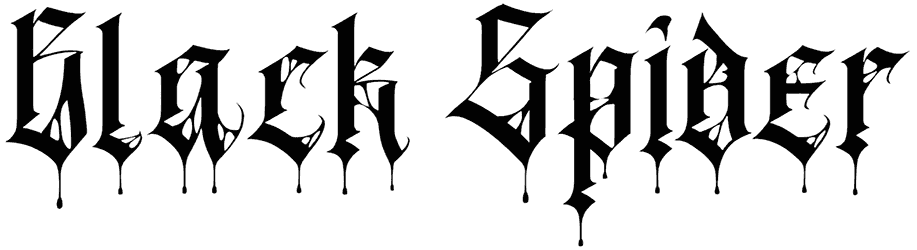
Black Spider Font
For horrifying designs, one of the best elements is the cobweb, and who can ignore writings like this? As a vampire font, Black Spider has classic letters that are dripping. With the almost full support of characters, this eerie face letter can be an ace illustration for your creative designs, such as vampire movies, Halloween posters, games, or the like.